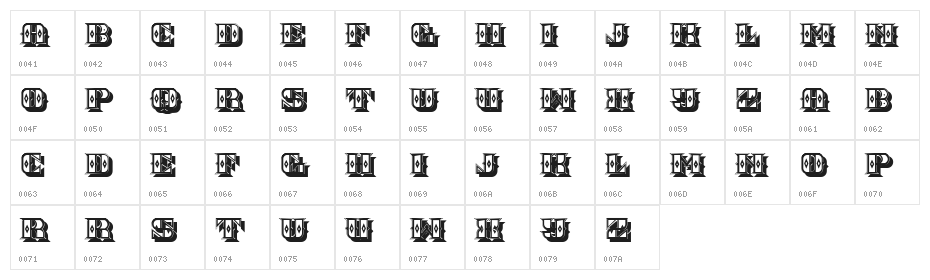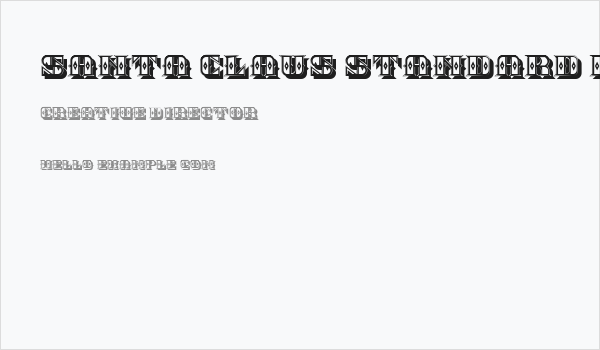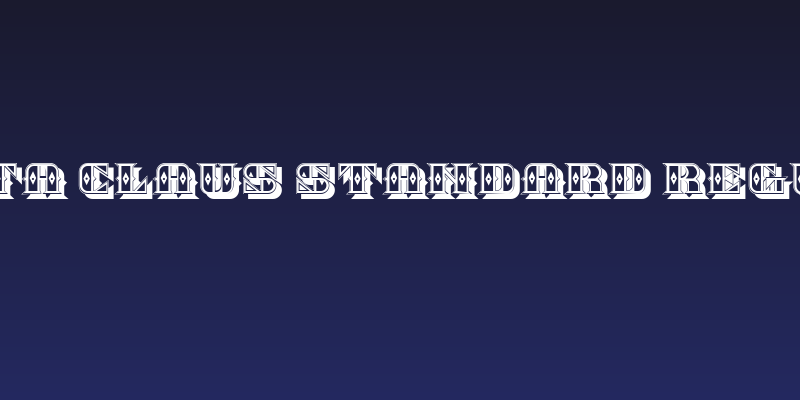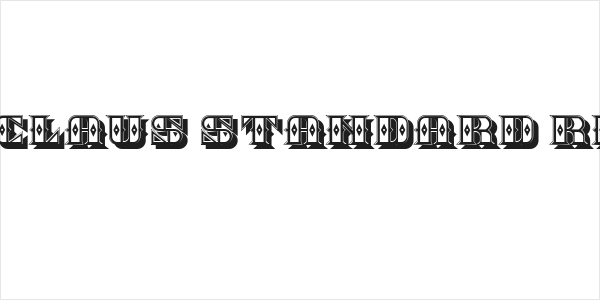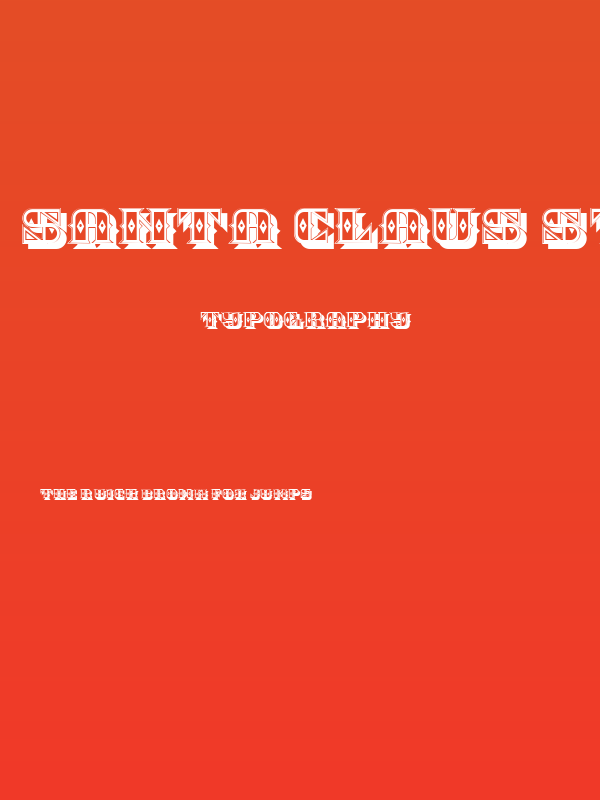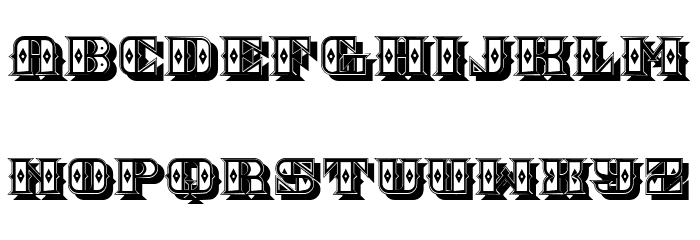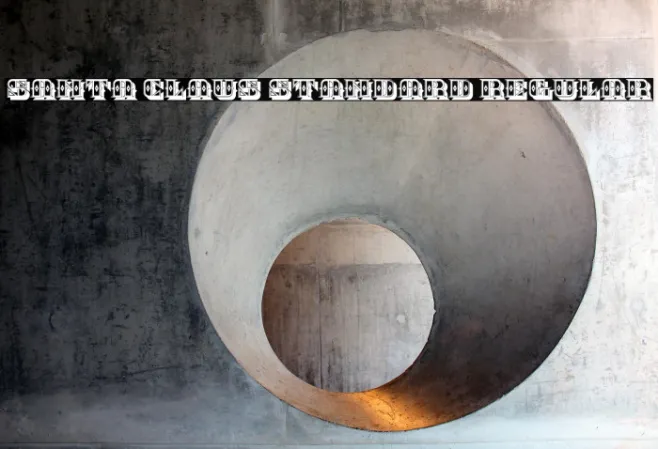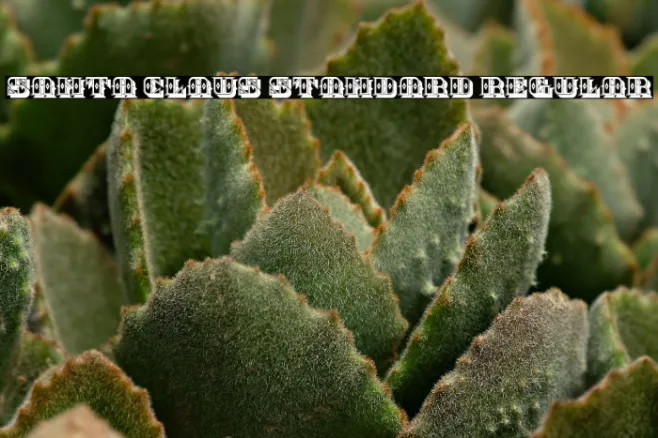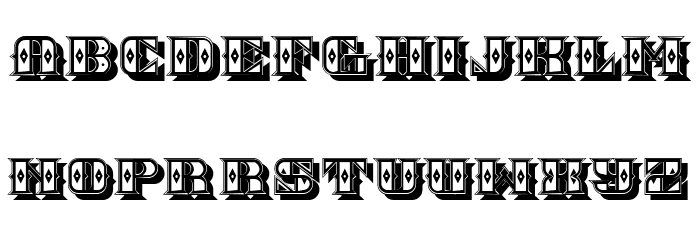
Santa Claus Standard Regular Font
Santa Claus Standard Regular Description
This font features a bold and decorative style with intricate patterns and embellishments within each character. The letters are outlined with a thick black border, adding to their striking appearance. The interior of each letter is filled with a unique design that includes diamond shapes and lines, creating a festive and ornamental look. The font is highly stylized, making it suitable for eye-catching designs. Its elaborate details and bold presence make it ideal for projects that require a strong visual impact.
| Proposed Projects | Ideal for holiday-themed designs, festive invitations, greeting cards, and decorative posters. |